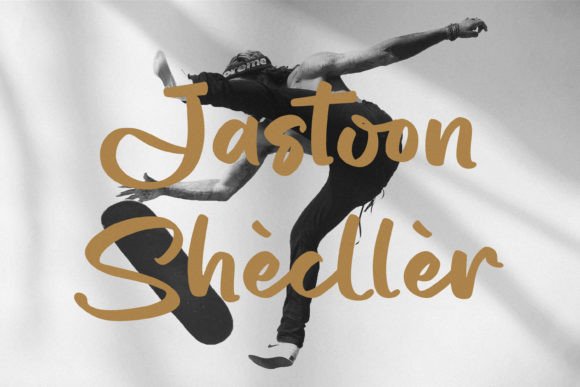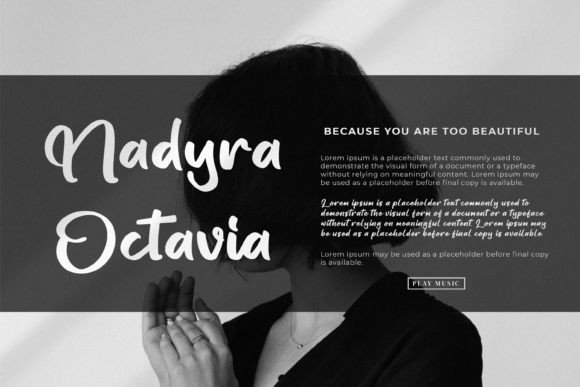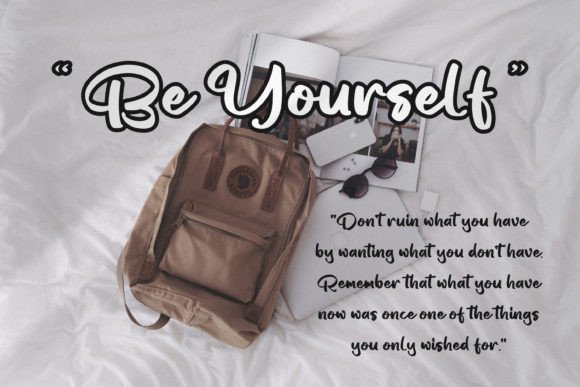
Monella Cattresh Font
Monella Cattresh is a playful and charming handwritten font that exudes a sense of youthful energy. Its bouncy, irregular strokes create a sense of whimsy, while its rounded edges lend a friendly and approachable feel. Whether used for invitations, social media graphics, or branding materials, Monella Cattresh adds a touch of fun and personality to any project.